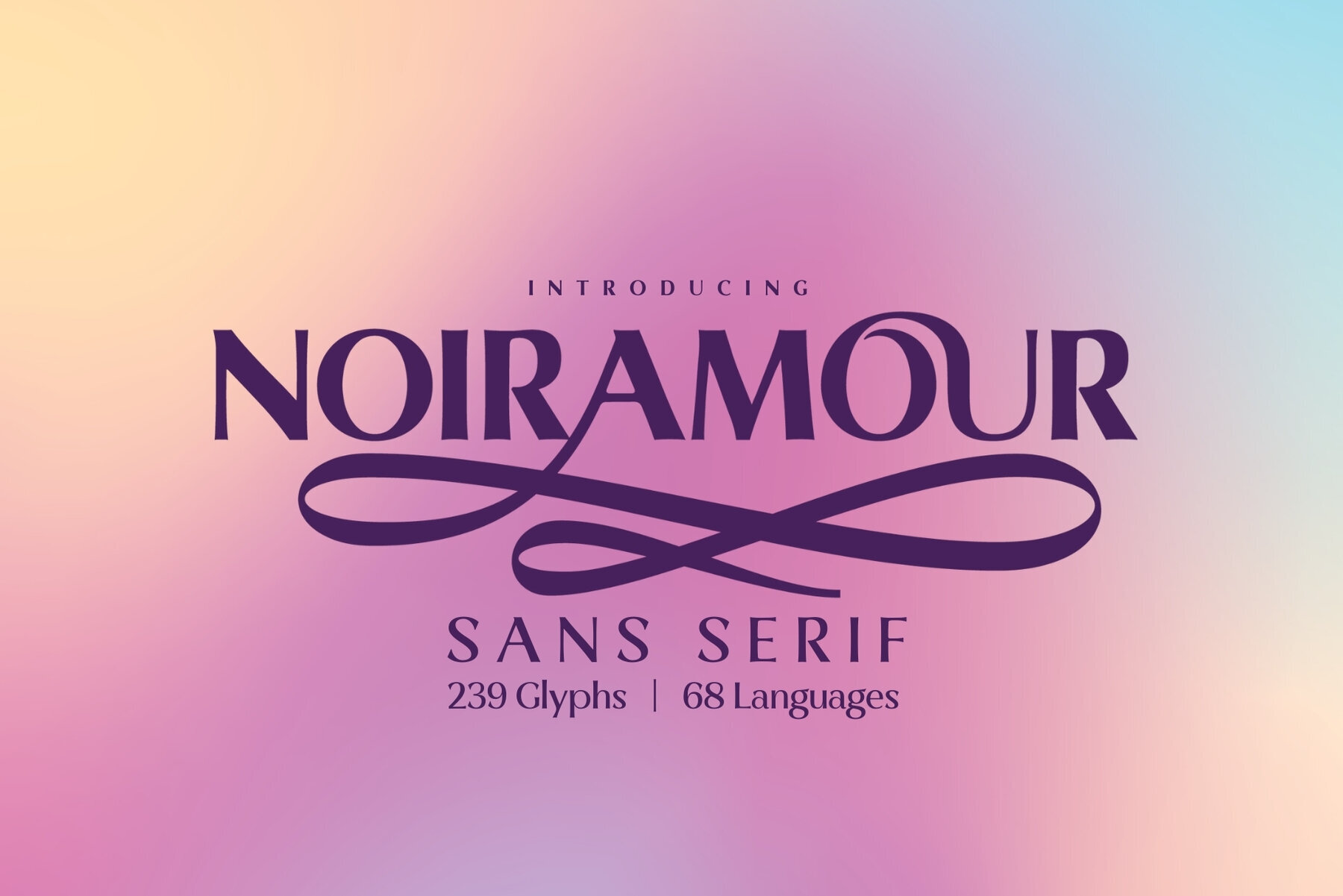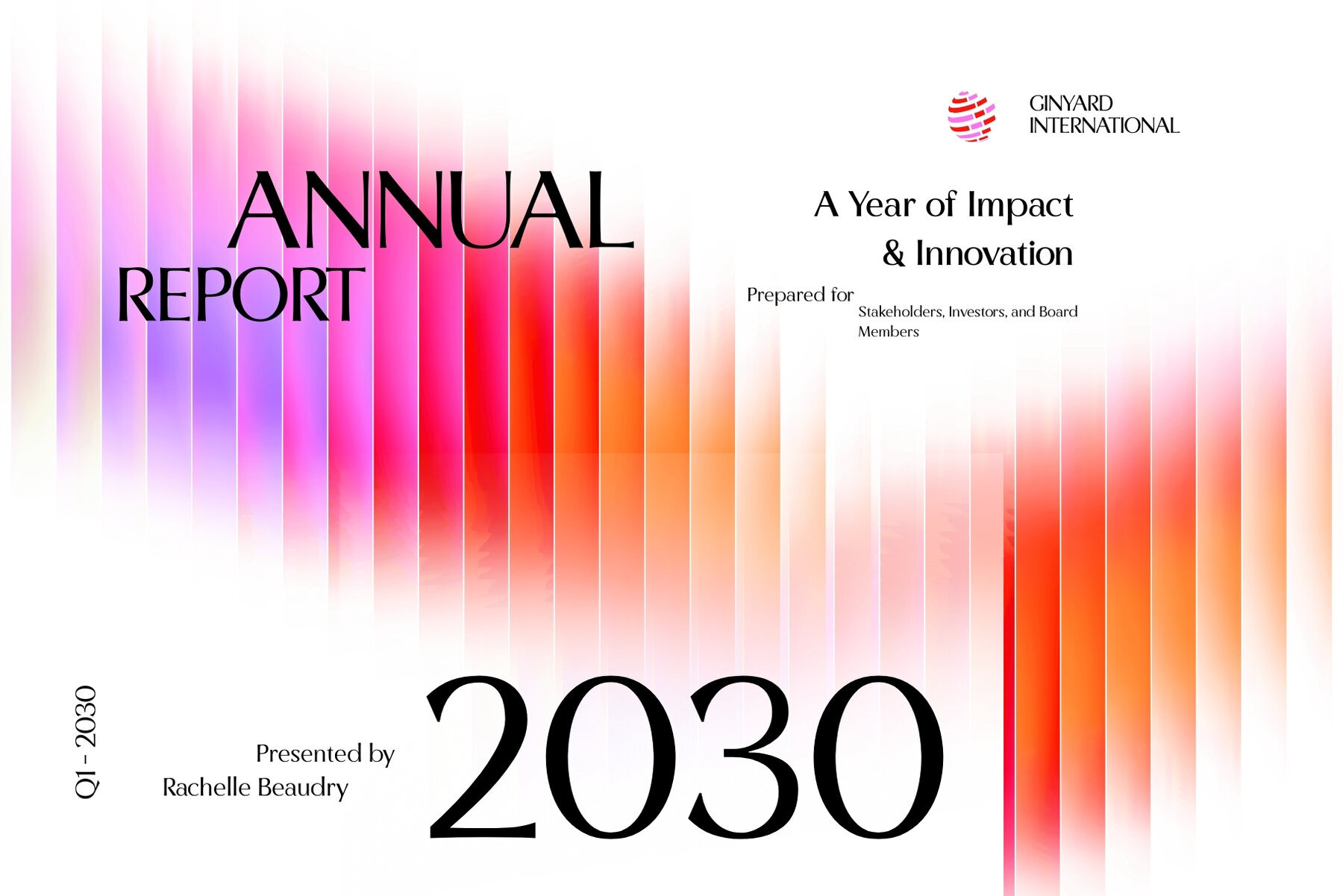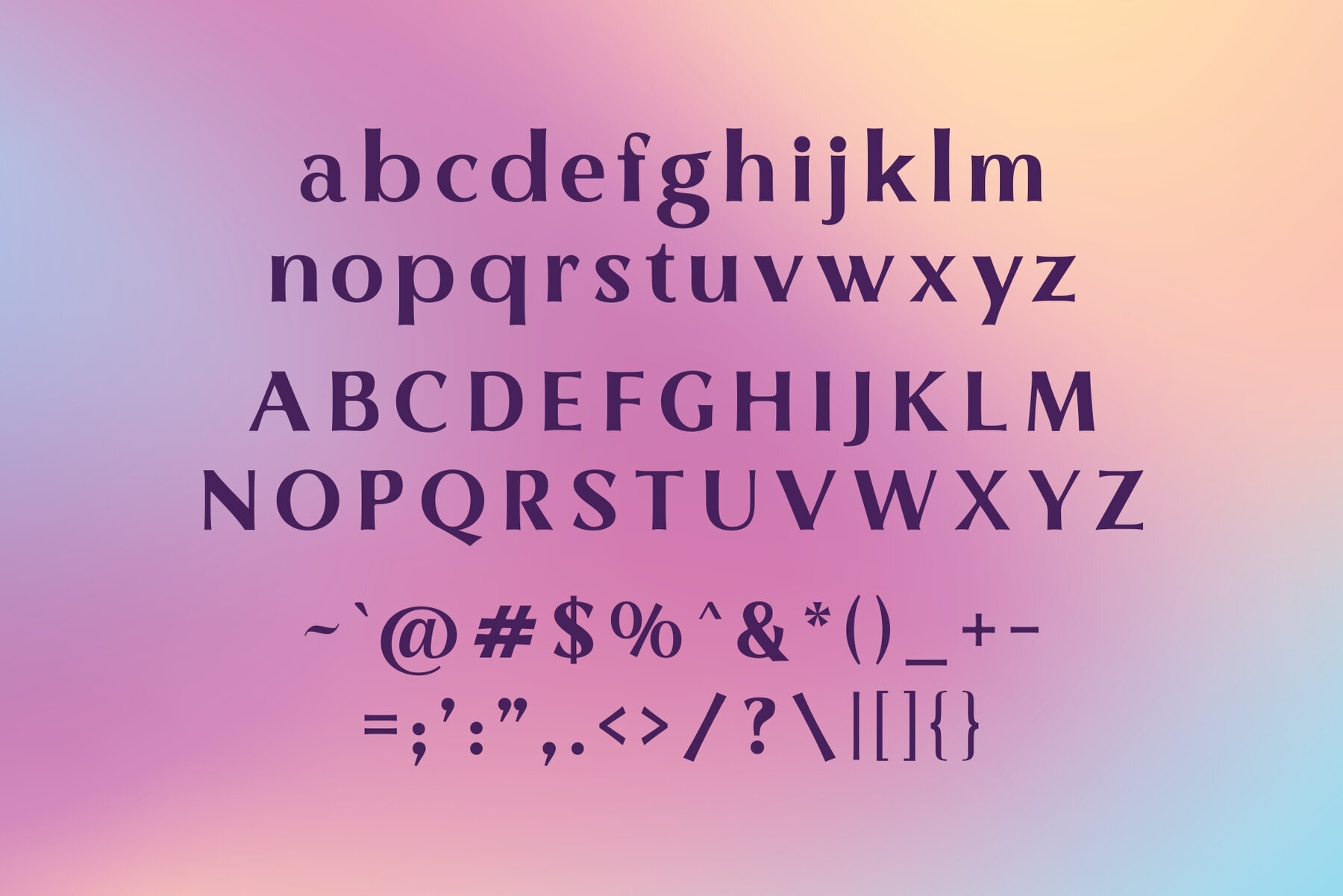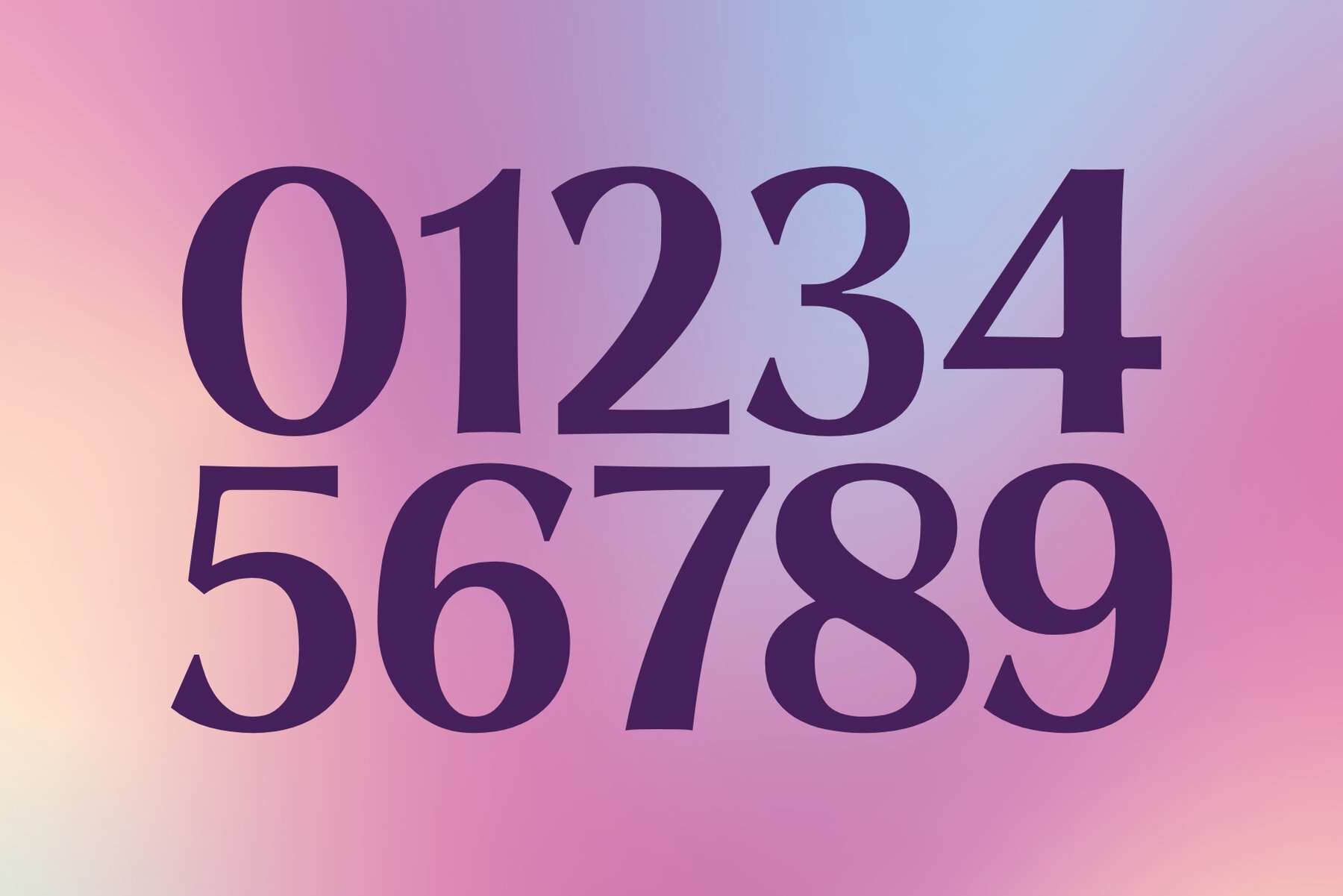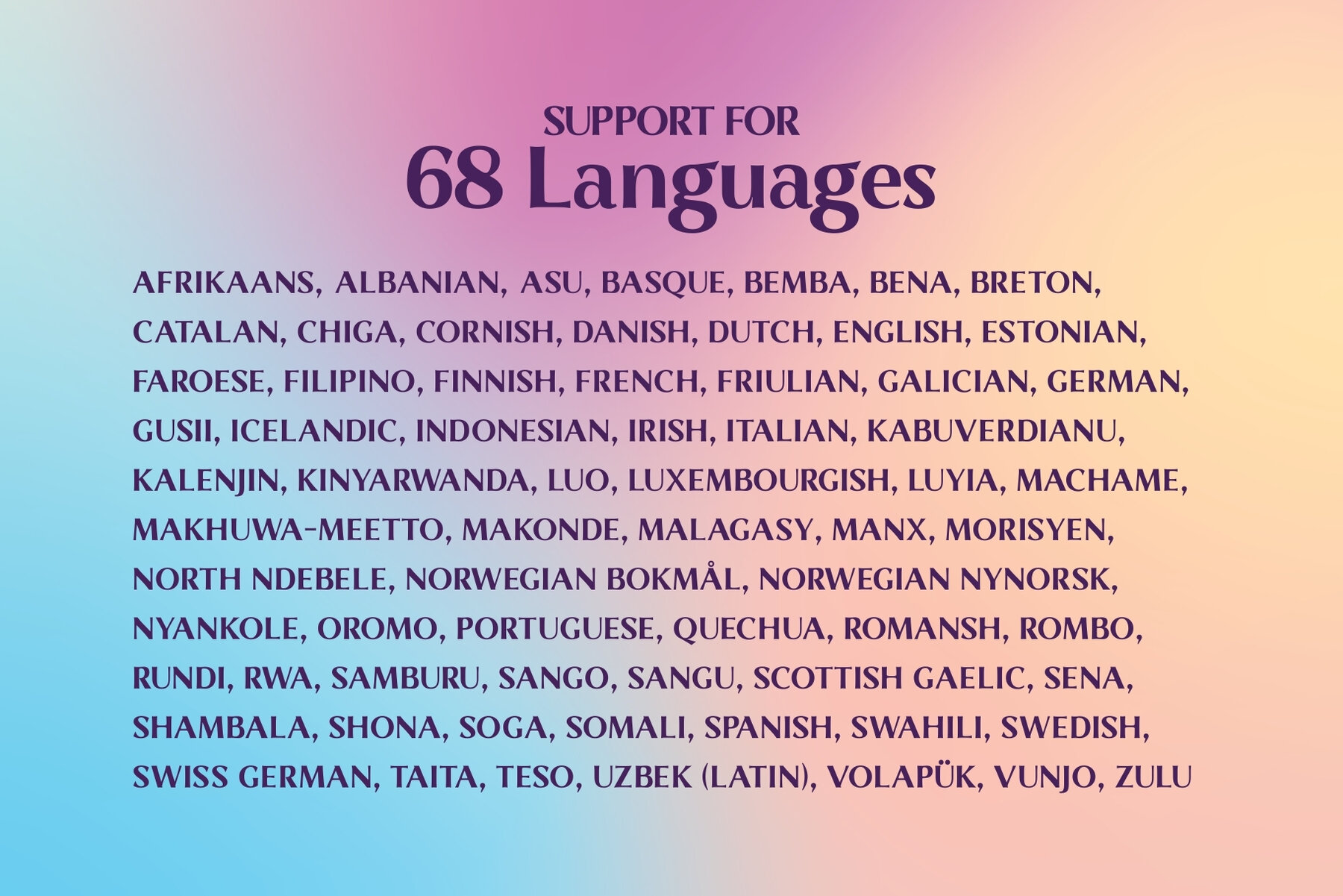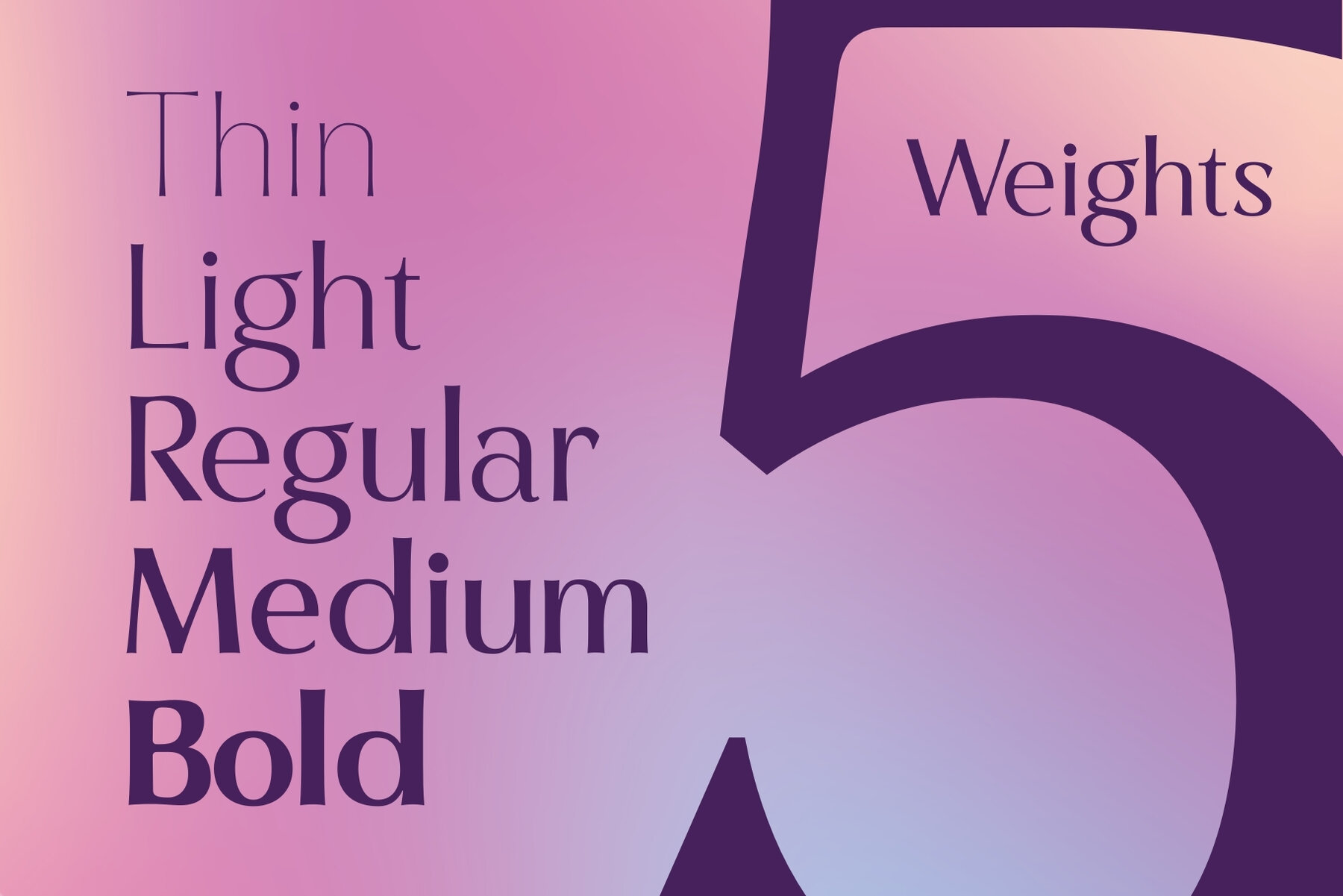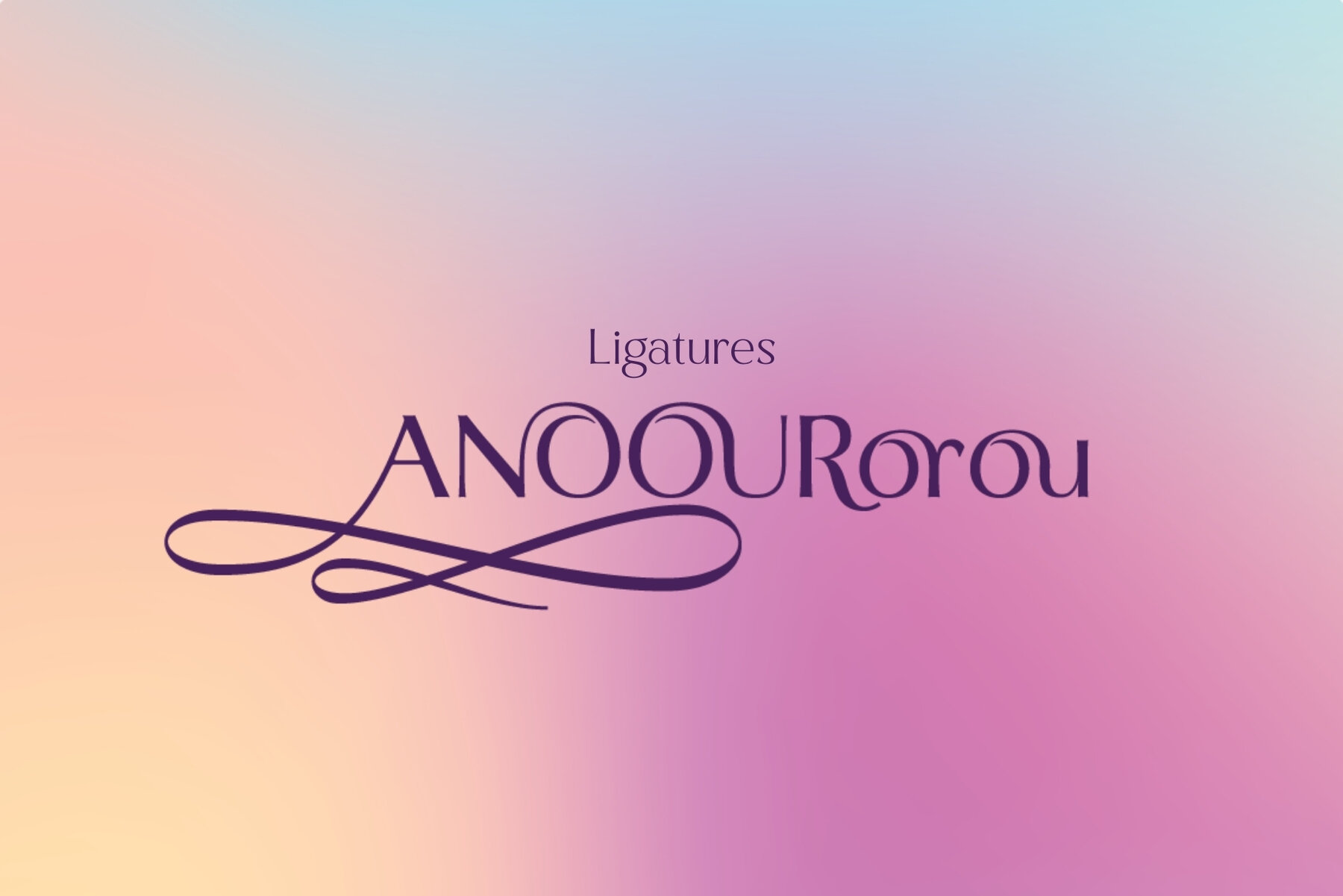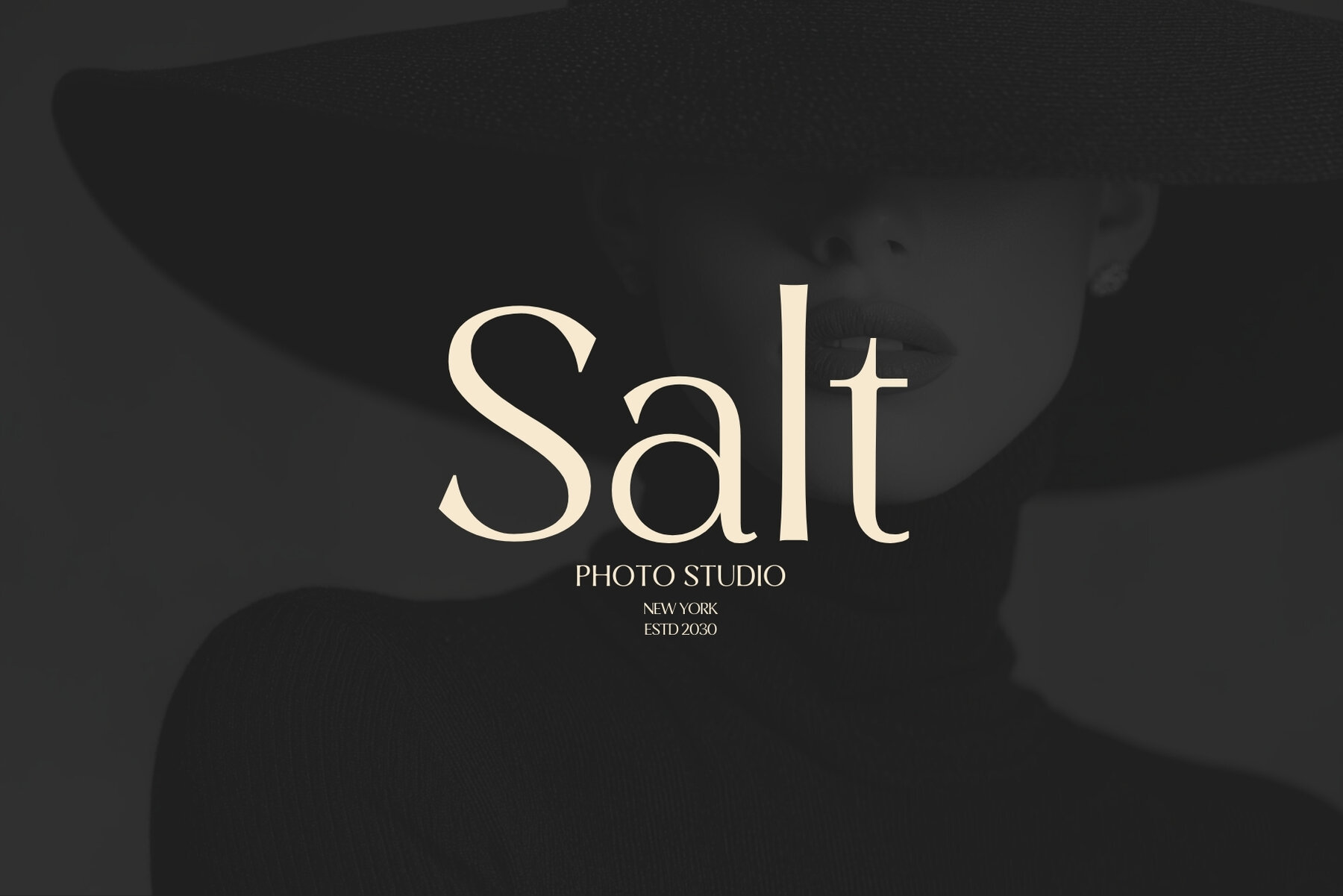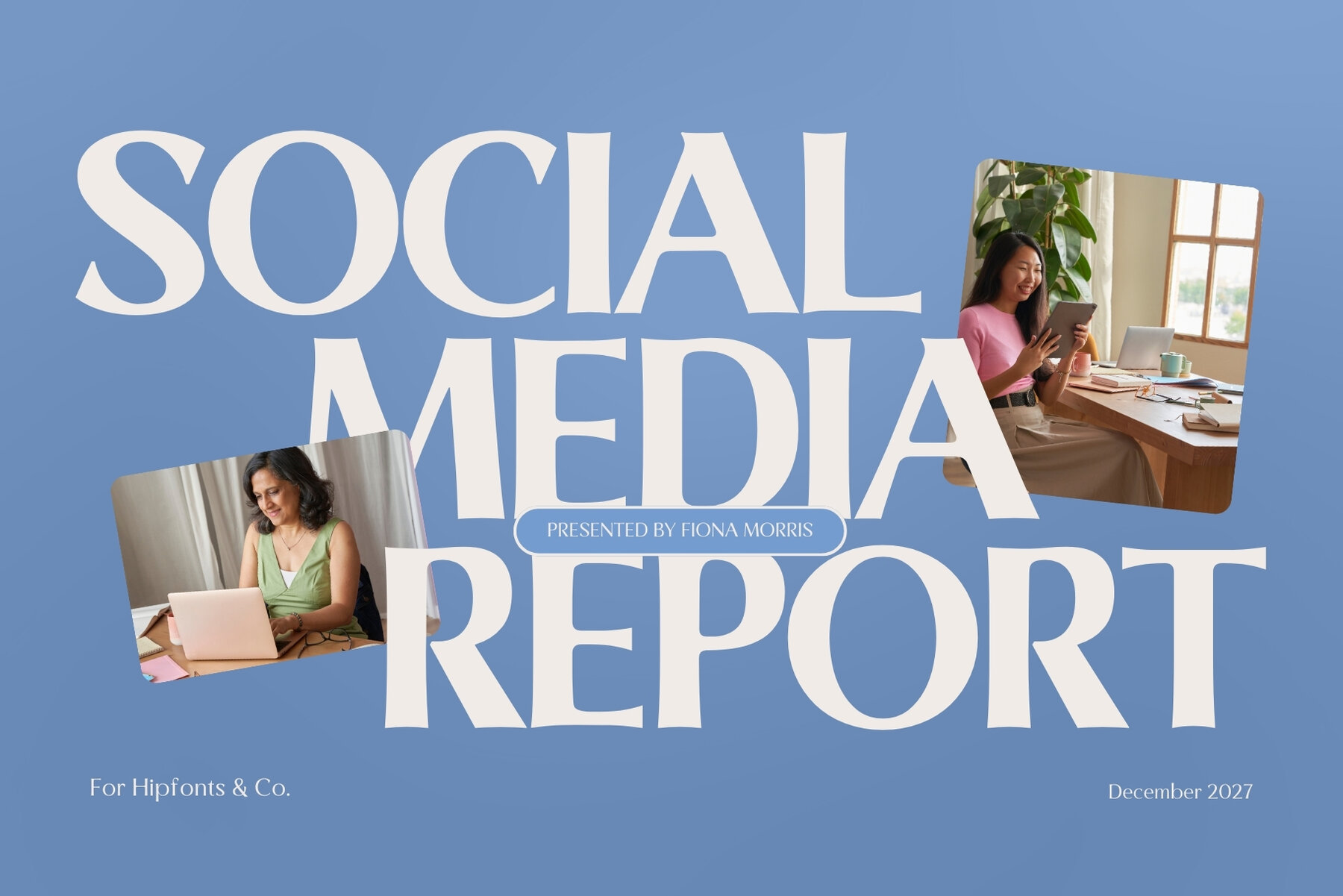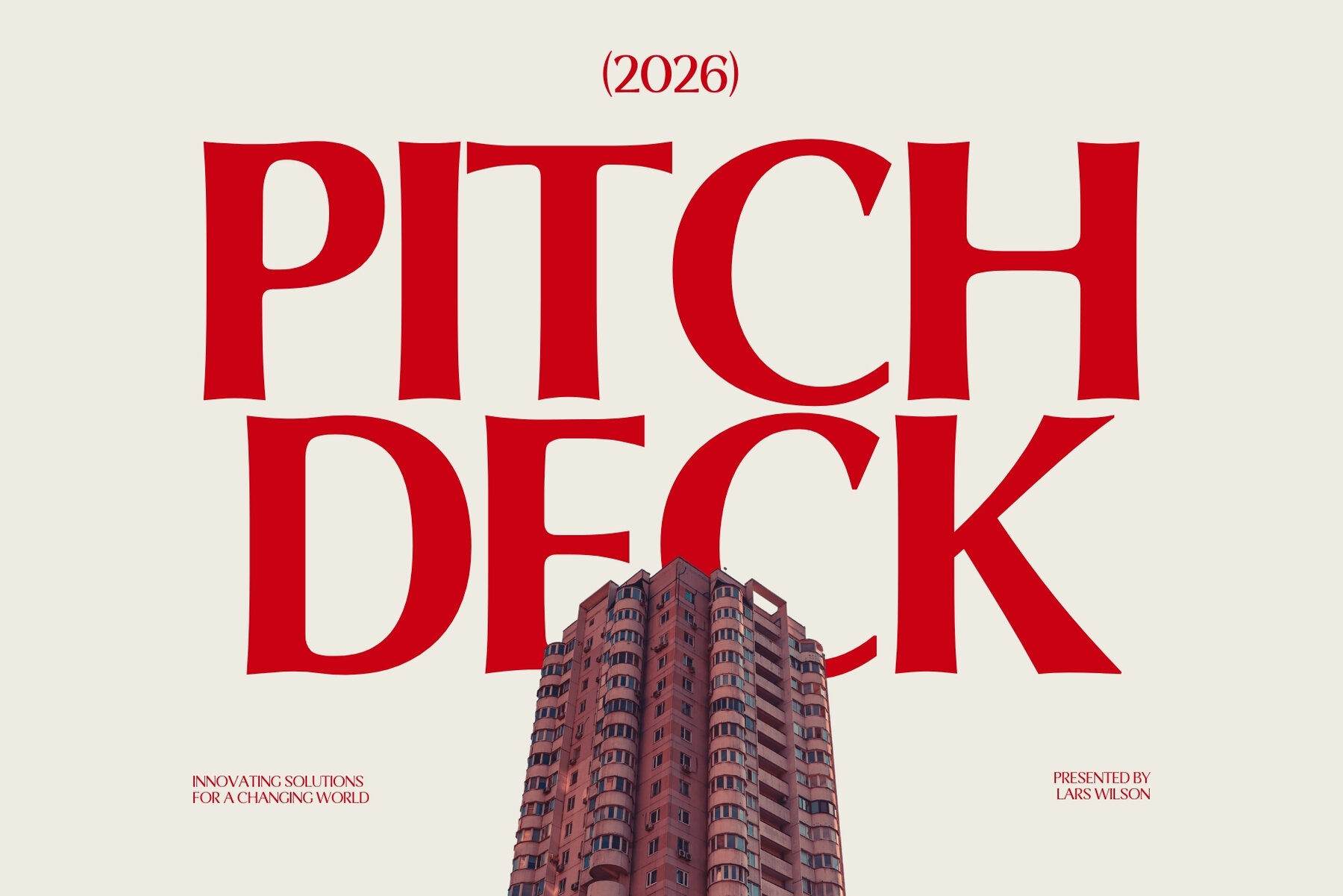
Noir Amour Font
Noir Amour is a sophisticated variable sans serif typeface designed for projects where versatility and elegance are crucial. With its crisp, balanced forms, this font excels in branding, editorial design, digital platforms, and packaging. Every detail has been tuned for clarity, making it ideal for both contemporary luxury brands and confident, direct communications.Noir Amour Variable Sans Serif Typeface
Choose from five carefully designed weights—Thin, Light, Regular, Medium, and Bold—to match your project’s specific visual needs. The font’s extended character set includes 239 glyphs and supports 68 languages, ensuring consistency across global applications. Each weight maintains the modern, refined look that defines Noir Amour.Key Features